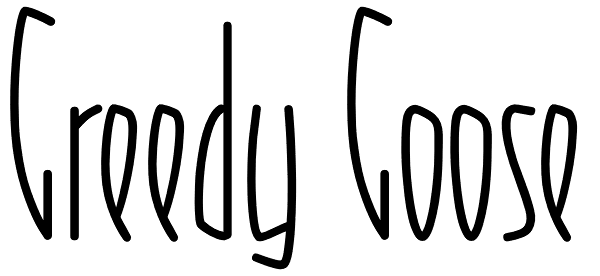
Greedy Goose
Greedy Goose is a fresh new font that's full of character and unexpected surprises. Its thin, condensed strokes are ideal for elegant presentations that include Invitations, Brochures and Menus. So next time you need a fun, creative font with...